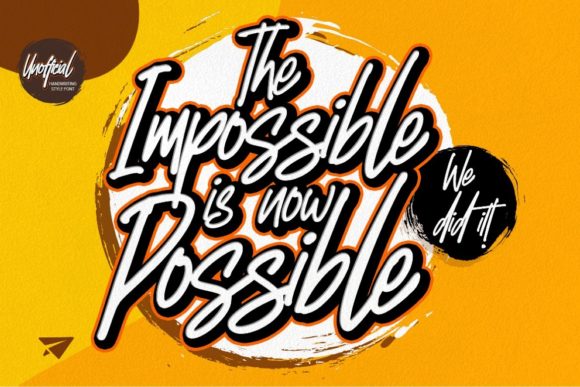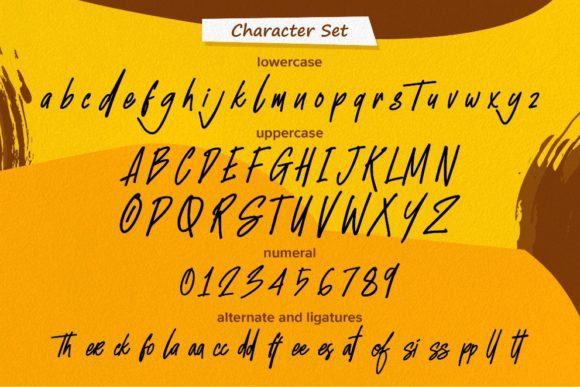
Unofficial Font
db-ku.com - Script & Handwritten -- Unofficial is a stylish and asymmetrical handwritten font. It is PUA encoded which means you can access all of the glyphs and swashes with ease! Add it confidently to your favorite creations and let yourself be amazed by the outcome generated.